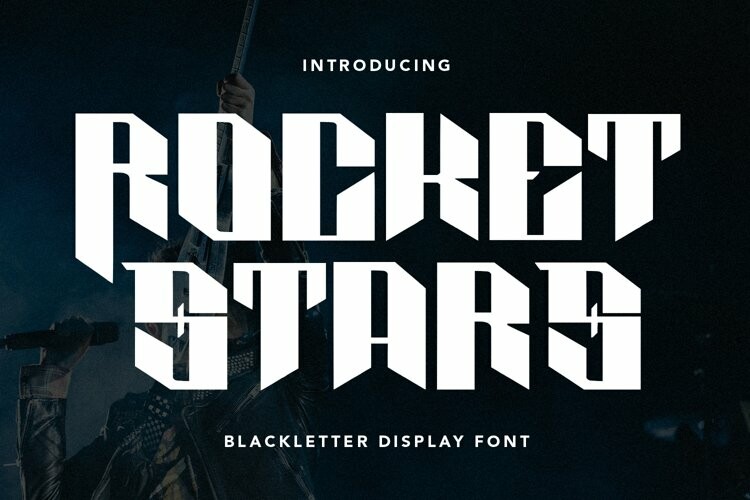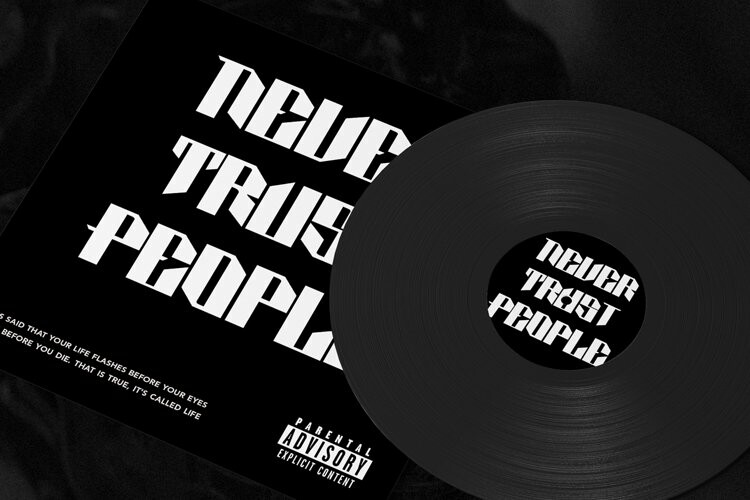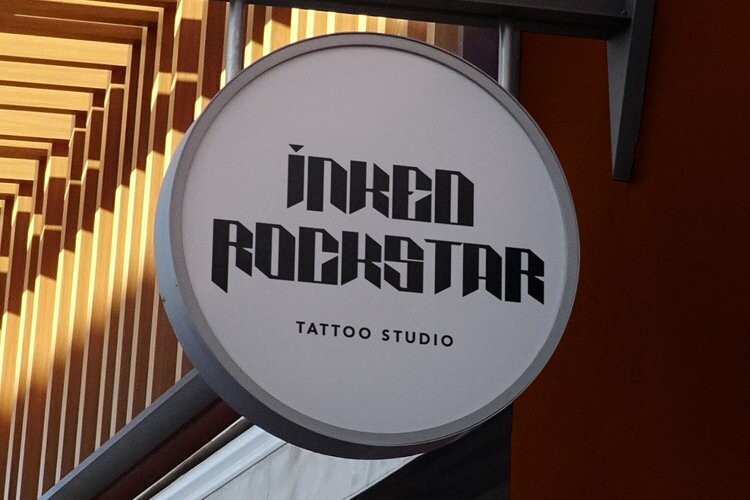
Rocket Stars Font
Rocket Stars FontRocket Stars is a classic display serif font. With medium low contrast stroke, fun character with a bit of ligatures and alternates. To give you an extra creative work. Rocket Stars font support multilingual more than 100+ language. This font is good for logo design, Social media, Movie Titles, Books Titles, a short text even a long text letter and good for your secondary text font with script or serif. Make a stunning work with Rocket Stars font.